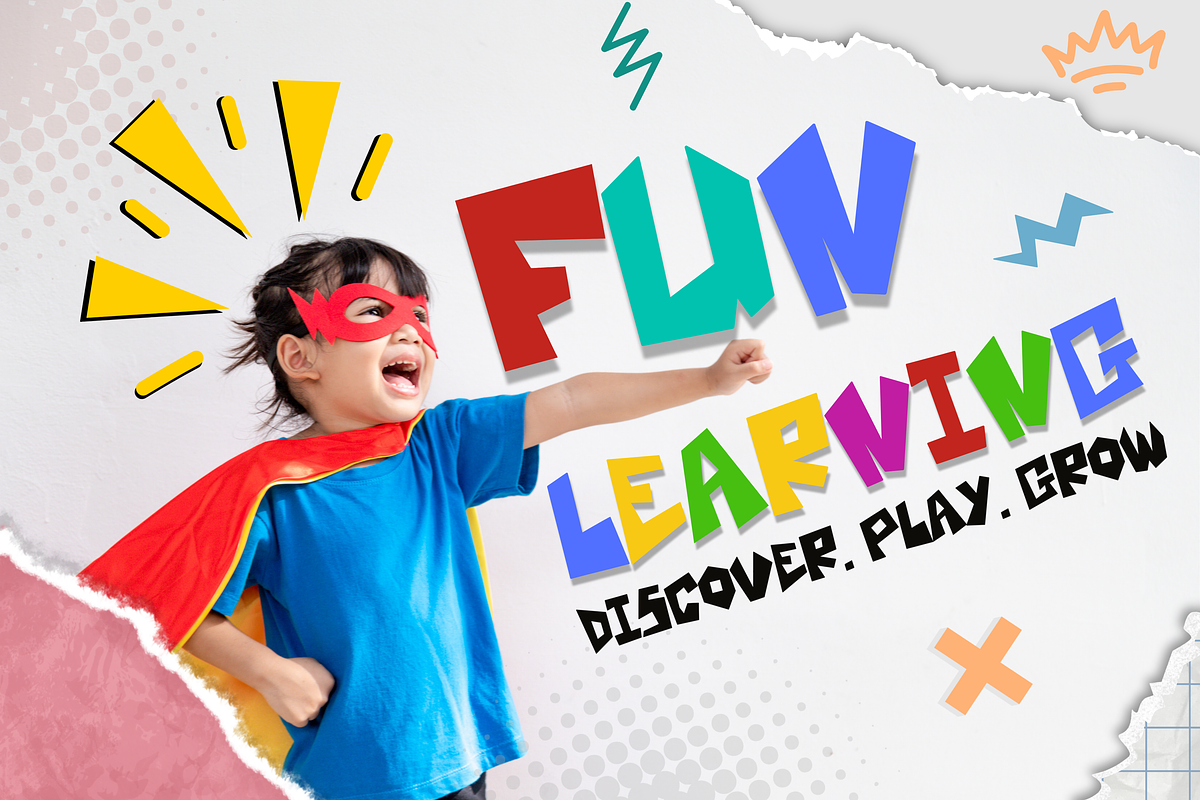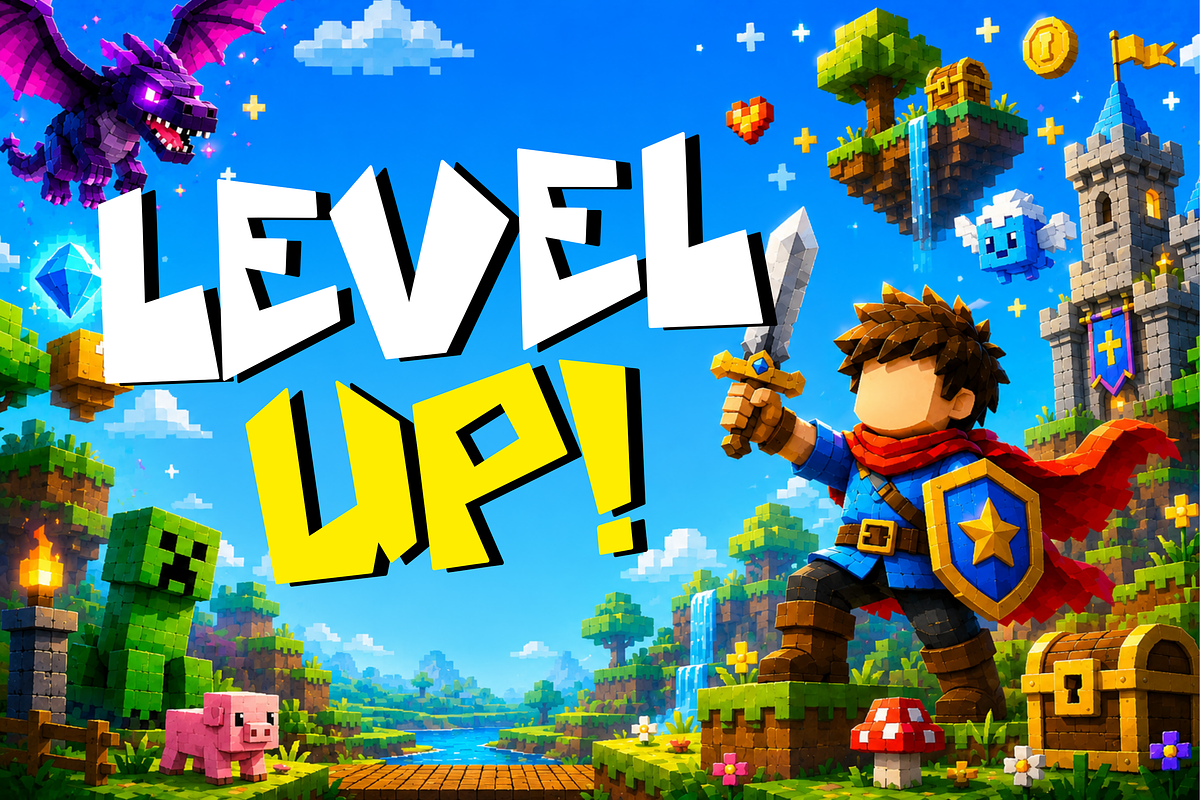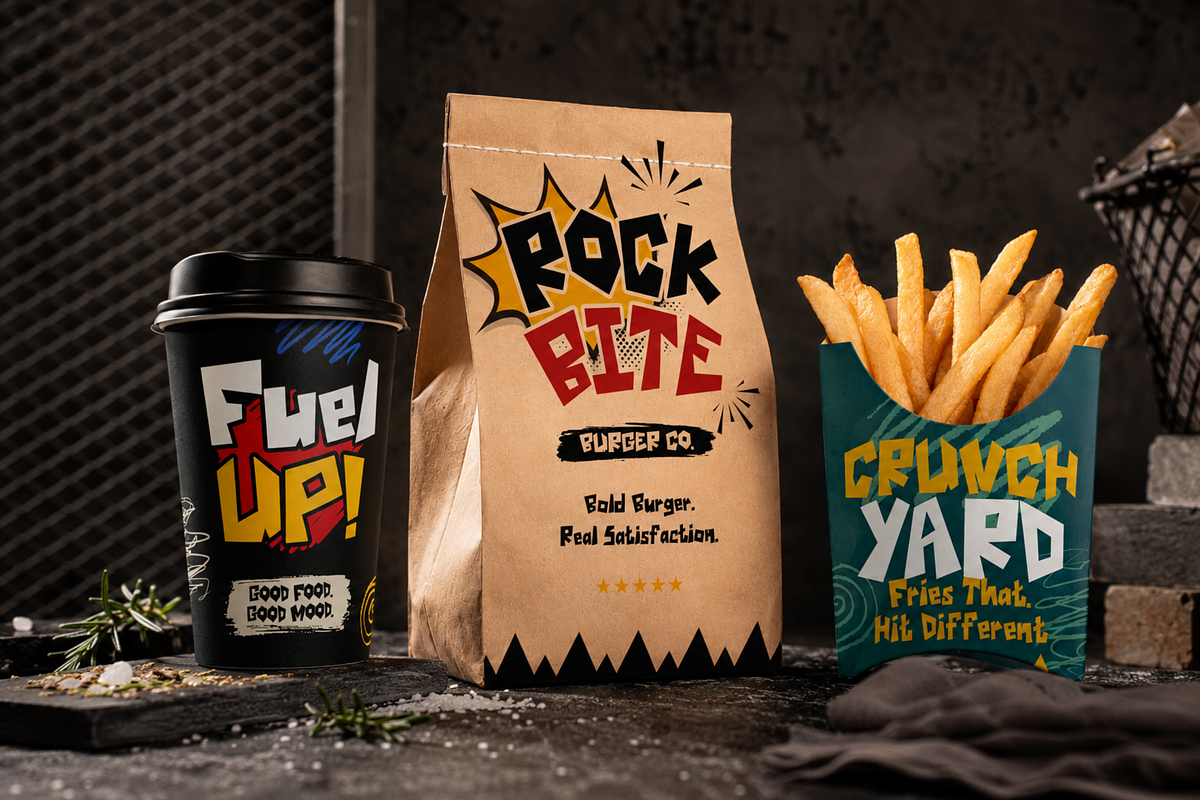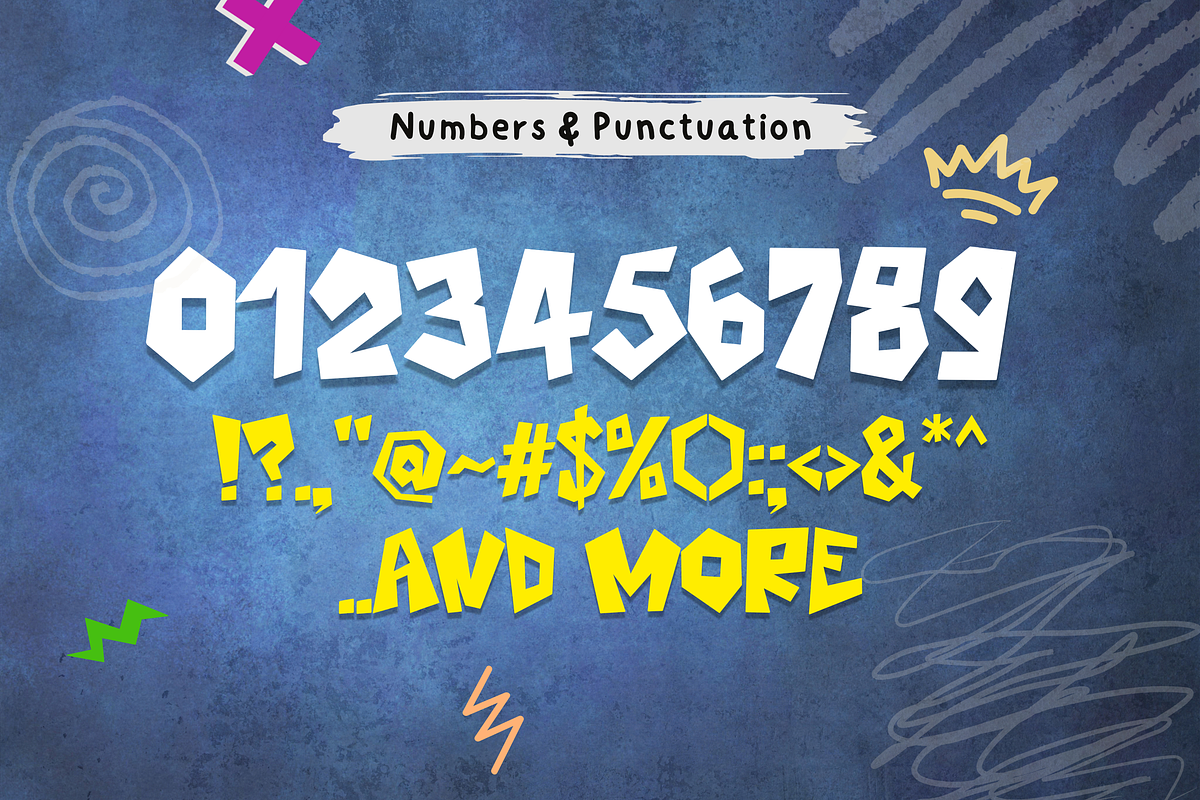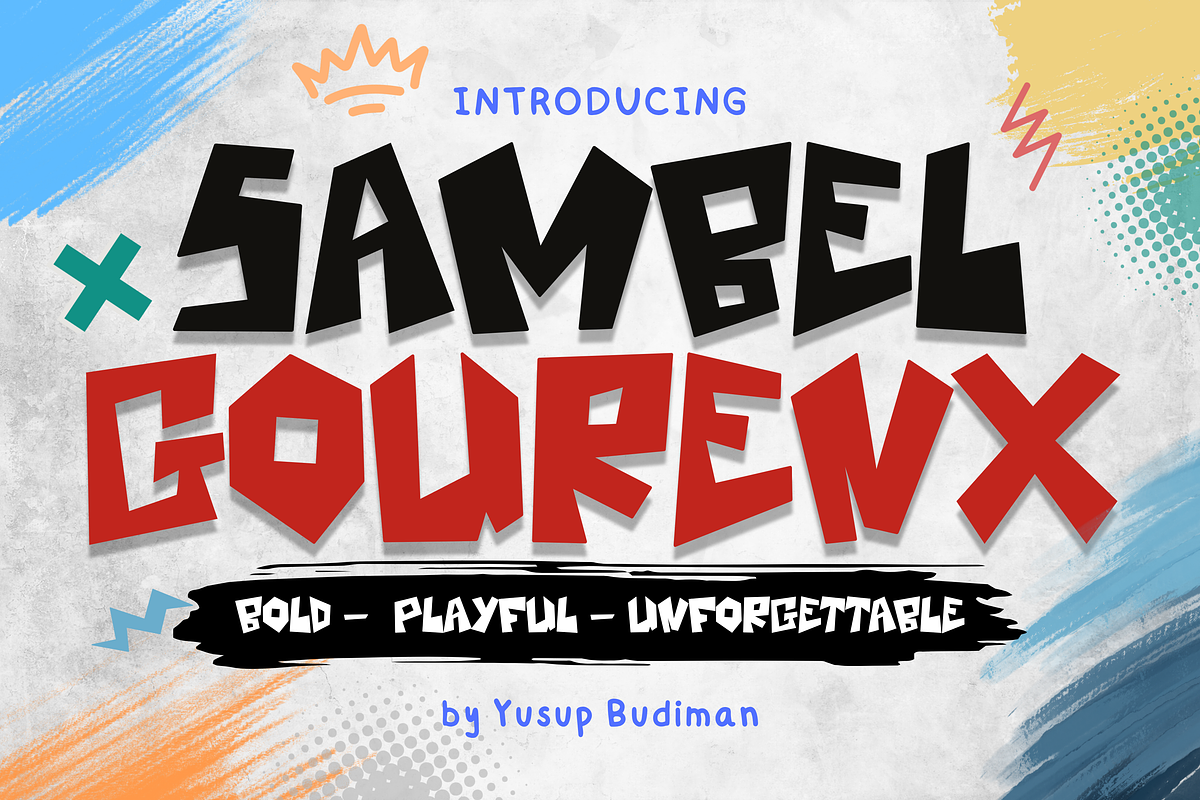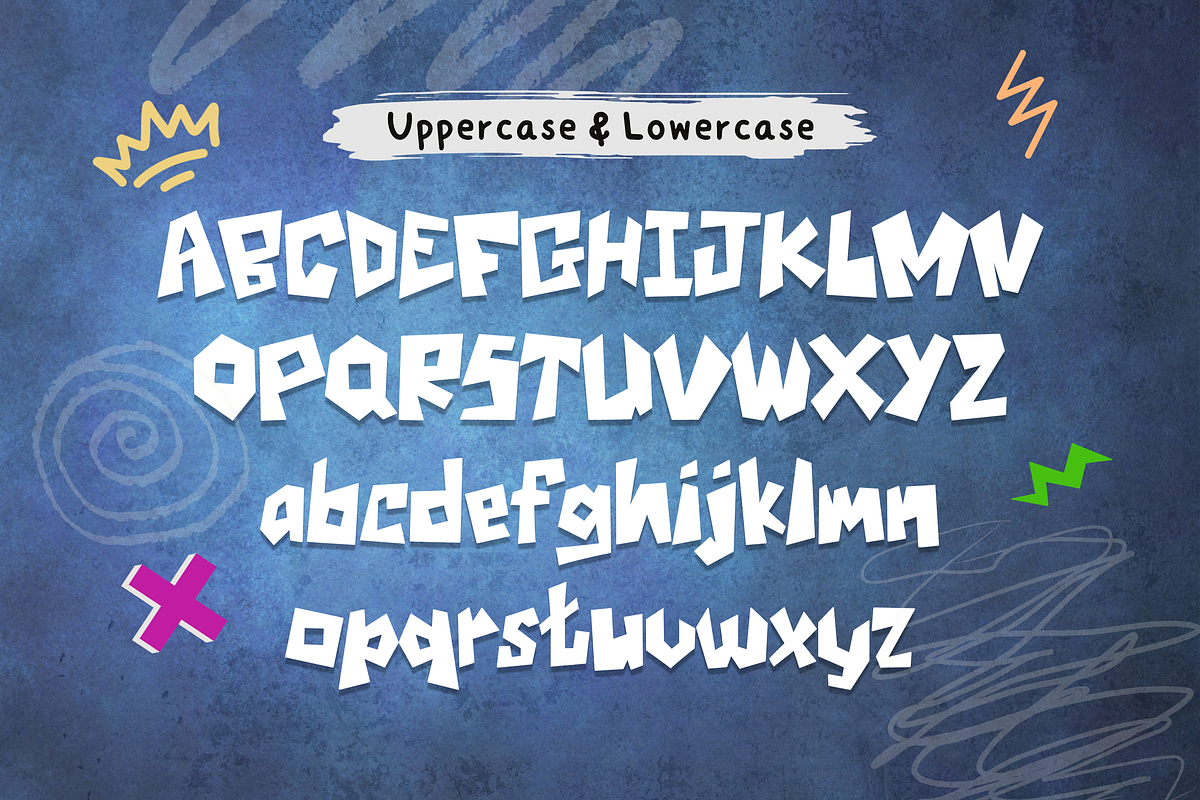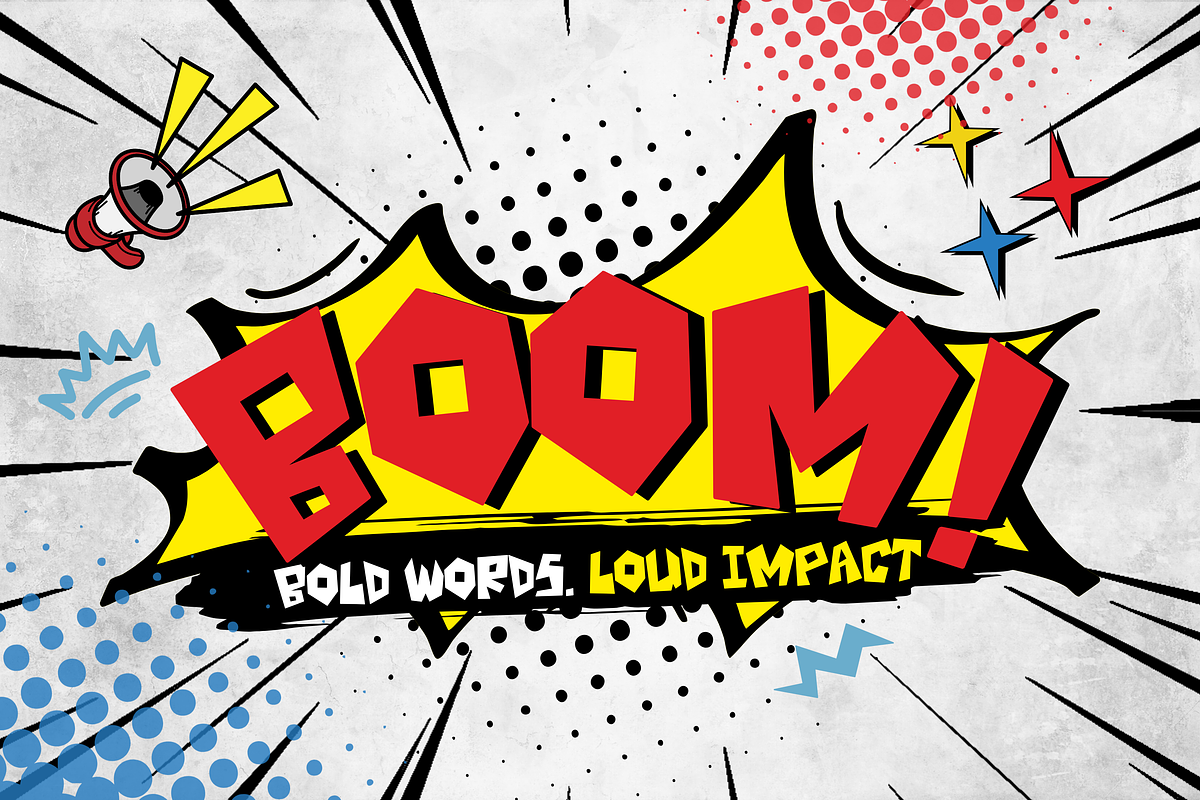
Sambel Gourenx – Bold Cartoon Display Font
Bring explosive energy to your designs with Sambel Gourenx, a bold cartoon display font built to grab attention instantly.
Featuring chunky geometric letterforms, playful irregular shapes, and powerful visual impact, Sambel Gourenx is perfect for creators who want typography that feels loud, energetic, and unforgettable.
Whether you're designing game titles, children's products, comic books, food packaging, YouTube thumbnails, posters, or branding projects, this font delivers a fun personality that stands out on every canvas.
Its strong silhouette keeps headlines readable even from a distance, making it ideal for large display text and eye-catching marketing materials.
From gaming adventures to restaurant branding, Sambel Gourenx brings excitement to every project.
Lowercase
Symbols
Bold Display Style
Cartoon Look
High Readability
Strong Headlines
Perfect for Large Titles